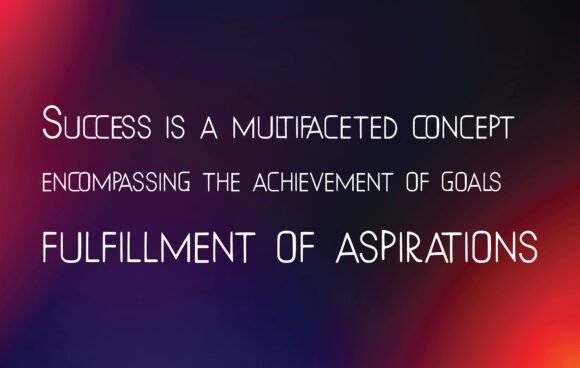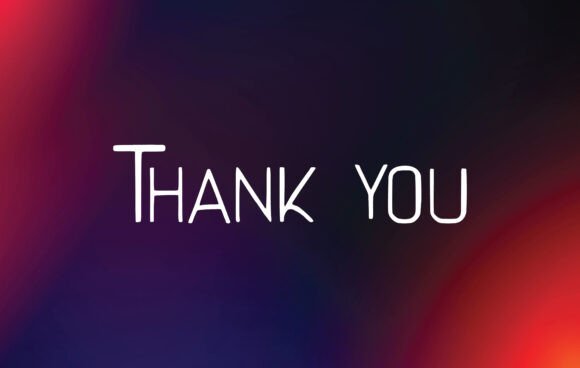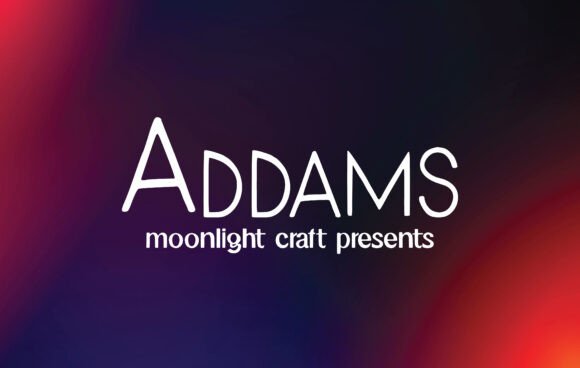
Introducing Addams Font: Elevate Your Creative Projects with Elegance
In the world of typography, fonts play a crucial role in bringing creative ideas to life. For designers, crafters, and anyone looking to make a statement, the right font can make all the difference. This is where the Addams Font comes into play – a lovely and beautiful handwritten font designed to take your projects to new heights. With its unique charm and versatility, Addams is poised to become your go-to choice for creating eye-catching logos, branding materials, and inspirational quotes.
The Beauty of Addams Font
At first glance, the Addams Font exudes a sense of elegance and sophistication. Its handwritten nature gives it a personal and intimate feel, making it perfect for projects that require a touch of warmth and character. The fluid strokes and carefully crafted letterforms ensure a seamless reading experience, while the font’s overall aesthetic is sure to captivate your audience.
Why Choose Addams Font?
So, what sets Addams apart from other fonts? Here are a few reasons why it’s an excellent choice for your creative projects:
- Versatility: Addams Font is incredibly versatile, making it suitable for a wide range of applications, from logos and branding to quotes and social media graphics.
- Elegance: The font’s elegant and refined appearance ensures that your projects will exude sophistication and poise.
- Readability: Despite its ornate nature, Addams Font remains highly readable, even at smaller sizes.
- Uniqueness: With its distinctive character, Addams Font will help your projects stand out from the crowd.
Whether you’re a professional designer or a crafter looking to add a personal touch to your projects, Addams Font is an excellent choice. Its flexibility and beauty make it ideal for:
- Logo Design: Create stunning logos that capture the essence of your brand.
- Branding Materials: Develop a consistent visual identity with Addams Font.
- Quotes and Social Media Graphics: Add a touch of elegance to your inspirational quotes and social media graphics.
- Stationery and Invitations: Add a personal touch to your stationery, invitations, and other paper goods.
Tips for Using Addams Font
To get the most out of Addams Font, here are a few tips to keep in mind:
- Pair it with simplicity: Balance the font’s ornate nature with simpler design elements to avoid visual overload.
- Experiment with colors: Addams Font looks stunning in a variety of colors, so don’t be afraid to experiment and find the perfect hue.
- Use it consistently: Consistency is key when working with fonts – use Addams Font across all your materials to create a cohesive look.
In conclusion, Addams Font is a beautiful and elegant handwritten font that’s perfect for designers, crafters, and anyone looking to elevate their creative projects. With its versatility, readability, and unique character, it’s an excellent choice for a wide range of applications. So why wait? Discover the power of Addams Font and take your creative ideas to new heights.
- Lovely and beautiful handwritten font
- Perfect for logos, branding, quotes, and more
- Elegant and refined appearance
- Highly readable
- Unique and distinctive character
Whether you’re looking to create stunning logos, develop a consistent brand identity, or simply add a touch of elegance to your projects, Addams Font is the perfect choice. So go ahead, explore the possibilities, and let Addams Font help you bring your creative ideas to life.